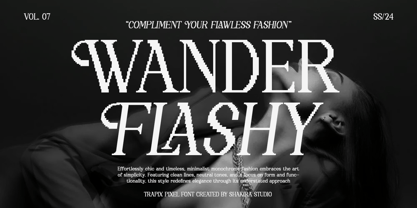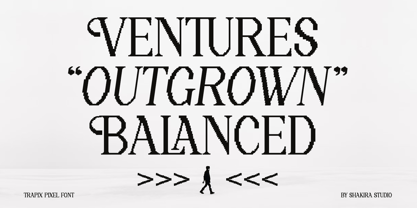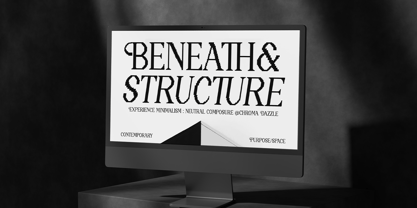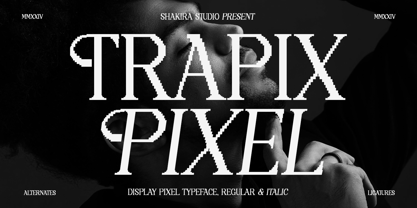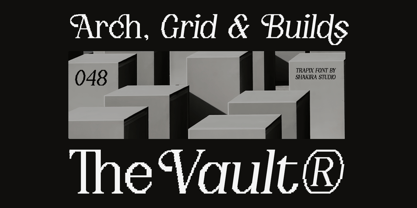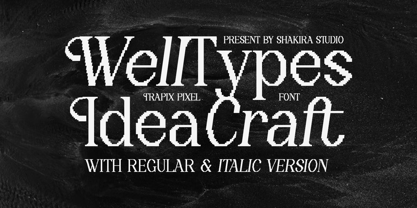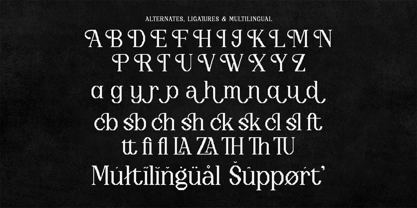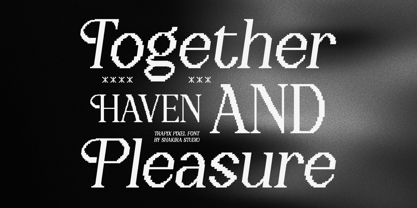
Trapix
by Shakira Studio
The Trapix Font Family was designed by Idhham Cholid Rikzano Yahya and published by Shakira Studio. Trapix contains 2 styles and family package options. More about this family
Trapix - A Unique Pixel-Style Serif Typeface
Trapix is a serif typeface with a unique pixel character, designed to bring a modern touch to your designs. Featuring stylish alternates and ligatures, this font allows users to create creative and personalized designs effortlessly.
Perfect for a wide range of design needs, such as posters, magazines, branding, and premium prints. The combination of unique pixel style and classic serif elements makes Trapix the ideal choice for adding a stunning retro-modern vibe to your projects.
Make Trapix the centerpiece of your design projects and create unforgettable works that stand out. Unleash your creativity with Trapix!
Designers: Idhham Cholid Rikzano Yahya
Foundry: Shakira Studio